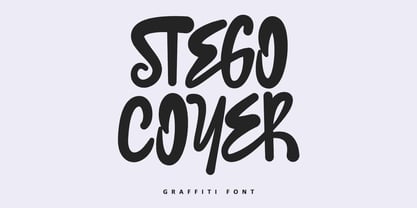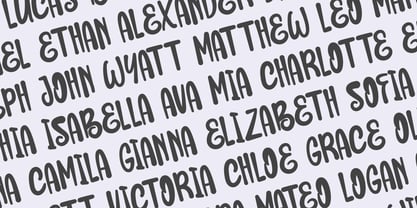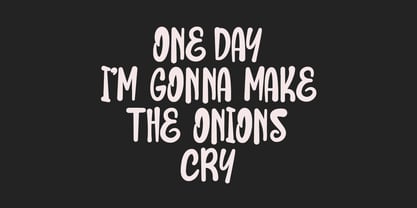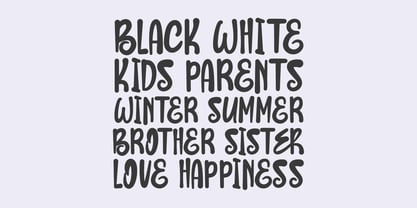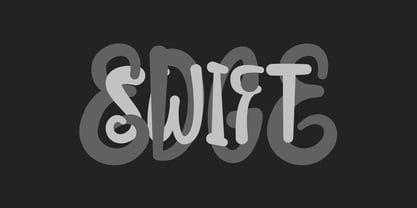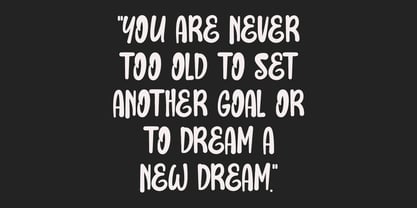
MC Stego Coyer
by Maulana Creative
The MC Stego Coyer Font Family was designed by Gilang Maulana and published by Maulana Creative. MC Stego Coyer contains 1 styles. More about this family
Stego Coyer - The Authentic Graffiti Brush Font Unleash the urban energy in your designs with Stego Coyer, a bold, handcrafted graffiti-style font that screams street attitude and fun! Inspired by authentic street art and tag styles, this font is perfectly suited for designs that need a touch of raw, vibrant, and energetic flair. Its bouncy baseline, playful curves, and thick brush strokes bring an unmistakable youthful and rebellious spirit to any project. Features Included: - Full Set of Uppercase Letters: Giving you versatility for different design needs. - Numerals & Punctuation: Essential characters for complete text. - Ligatures and Alternates: Add a truly hand-drawn feel and variety to your typography (as seen in the preview images). - Multilingual Support: Reach a wider audience with extensive language options.